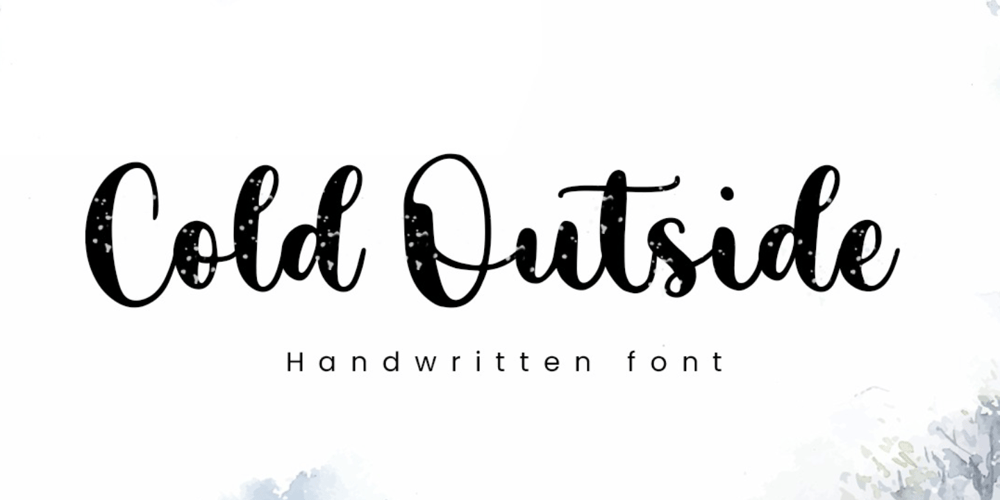
Cold Outside
Cold Outside font
Cold Outside Font Family was designed by Muhamad Yusron Billah and published by Sronstudio. Cold Outside contains 1 styles and family package options. Cold Outside is a Lovely Script font perfect for crafting, branding, invitation, stationery, wedding designs, social media posts, advertisements, product packaging, product designs, label, photography, watermark, special events, or anything.Cold Outside comes with a full set of uppercase and lowercase letters, swash alternates, ligatures, multilingual symbols, numerals, and punctuation.If you have any questions don’t hesitate to drop me a message ;)Happy Creation !!